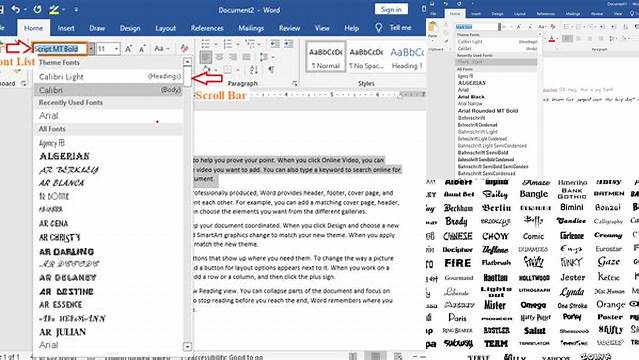
Understanding the Microsoft Word Font List PDF: Your Ultimate Guide
Hey guys, ever found yourself staring at a blank Word document, wondering which font to pick? It's a common struggle, right? Choosing the right Microsoft Word fonts list PDF can totally transform your document from drab to fab. Whether you're crafting a resume, a business proposal, a creative story, or just a simple memo, the font you select plays a massive role in how your message is received. This is where a good understanding of font lists, especially those available in PDF format, becomes super handy. Think of a font list PDF as your secret weapon for consistent and professional-looking documents. It’s not just about picking something that looks cool; it's about selecting a typeface that enhances readability, conveys the right tone, and aligns with the purpose of your document. We'll dive deep into why these lists are so valuable and how you can leverage them to make your Word documents stand out. Get ready to unlock the power of typography right at your fingertips!
Why You Need a Microsoft Word Font List PDF
So, you're probably thinking, "Why bother with a PDF font list? Can't I just see them in Word?" Well, yes, you can see them, but a dedicated Microsoft Word fonts list PDF offers a structured and comprehensive overview that's often missing within the application itself. Imagine trying to choose paint colors by just looking at tiny swatches on a wall versus having a large, organized chart showing all the shades and their names. A font list PDF is like that chart for your text. It allows you to see multiple fonts side-by-side, often with examples of how they render different characters and styles. This visual comparison is crucial for making an informed decision. Furthermore, these PDFs can serve as a reference when you're working on different computers or collaborating with others, ensuring everyone is on the same page regarding font choices. It helps avoid that awkward moment when a colleague opens your document, and everything looks completely different because they don't have the specific font installed. Plus, many comprehensive font list PDFs categorize fonts by style (serif, sans-serif, script, decorative), making it easier to find a font that matches a specific mood or brand identity. It's all about making your document visually appealing and communicating your message effectively, and a font list PDF is a fantastic tool to help you achieve that goal. It’s more than just a list; it’s a gateway to better document design.
Exploring Serif Fonts in Your Word Font List PDF
Alright, let's talk about serif fonts, a cornerstone of many Microsoft Word fonts list PDF resources. You know those little decorative strokes, the tiny feet, at the end of the main strokes of letters? Those are serifs! Think of classic fonts like Times New Roman, Georgia, or Garamond. These fonts are often considered traditional, elegant, and highly readable, especially for long blocks of text in print. When you’re browsing a font list PDF, look for the serif category. You'll see a whole world of variations: old-style serifs, transitional serifs, modern serifs, and slab serifs, each with its unique character. Old-style serifs, like Garamond, mimic the brush strokes of traditional calligraphy. Transitional serifs, like Baskerville, have more contrast between thick and thin strokes. Modern serifs, such as Bodoni, feature dramatic contrast and vertical stress. Slab serifs, like Rockwell, have thick, block-like serifs. Why is this important for your Word documents? Serif fonts tend to guide the eye along the line of text, which can be incredibly beneficial for readability in lengthy reports, books, or articles. When you're creating a resume, a serif font can project a sense of professionalism and tradition. For a more academic paper, they lend an air of authority and seriousness. When you're using your font list PDF, pay attention to how these serifs are designed. Some are delicate and fine, while others are bold and assertive. This subtle difference can significantly impact the overall feel of your document. So, next time you’re crafting a document, don't just skim past the serif section in your PDF; explore it! It might just hold the perfect font to give your work that polished, classic touch it deserves.
Discovering Sans-Serif Fonts from Your PDF Guide
Now, let's switch gears and talk about the other major player: sans-serif fonts. The name itself, "sans," means "without" in French, so sans-serif fonts are literally fonts without serifs. Think of popular choices like Arial, Calibri, Helvetica, or Verdana. You’ll find these prominently featured in any good Microsoft Word fonts list PDF. Sans-serif fonts are generally perceived as modern, clean, and straightforward. They have a more minimalist aesthetic compared to their serif counterparts. Why are they so popular, especially in digital contexts? Because they tend to render crisply on screens, making them excellent choices for websites, user interfaces, presentations, and, of course, your everyday Word documents. When you're using your font list PDF, you'll notice the diversity within the sans-serif category too. There are grotesque sans-serifs (like Franklin Gothic), geometric sans-serifs (like Futura, based on shapes), and humanist sans-serifs (like Open Sans, with more variation in stroke width and an organic feel). Choosing a sans-serif font for your Word document can make it feel contemporary and accessible. They’re often preferred for headings and shorter blocks of text because their clean lines can create a strong visual impact without being overwhelming. If you're designing a flyer, a modern report, or even a casual email that needs to look sharp and professional, a sans-serif font is often your best bet. When you refer to your font list PDF, consider the purpose of your document. Need something sleek and techy? Look for geometric sans-serifs. Need something friendly and approachable? Humanist sans-serifs might be the way to go. These fonts are versatile and form the backbone of much of today's design.
The Charm of Script Fonts: A Look in Your PDF
Moving on, let's dive into the more decorative and expressive world of script fonts. These are the fonts that mimic handwriting or calligraphy, ranging from elegant, flowing scripts to more casual, handwritten styles. If you've ever looked at a Microsoft Word fonts list PDF, you've likely seen a dedicated section for these beauties. Script fonts add a touch of personality, sophistication, and warmth to your documents. Think of wedding invitations, greeting cards, or perhaps a personal letter where you want to convey a sense of intimacy or style. Fonts like Brush Script MT, Lucida Calligraphy, or Edwardian Script ITC fall into this category. When you’re browsing your PDF, you'll notice a spectrum of styles. Some script fonts are very formal and ornate, suitable for formal invitations or elegant branding. Others are much more casual and playful, perfect for birthday cards or creative projects. However, a word of caution, guys: script fonts can sometimes be challenging to read, especially in large quantities or for extended reading. They are best used sparingly as accents – for titles, headings, or short, impactful phrases. Imagine using a very elaborate script font for your entire resume; it would likely be a readability nightmare! In your font list PDF, observe the spacing between letters (kerning) and the flow of the characters. Do they connect smoothly like cursive handwriting? Are the strokes thick and bold, or thin and delicate? Understanding these nuances will help you choose a script font that enhances your message rather than detracts from it. Use them wisely, and they can add a unique and memorable flair to your Word creations.
Decorative Fonts: Making a Statement with Your PDF List
Finally, let's explore the exciting realm of decorative or display fonts. These are the showstoppers, the fonts designed to grab attention and make a bold statement. You'll typically find them towards the end of a Microsoft Word fonts list PDF, often labeled as 'Decorative,' 'Display,' or 'Specialty.' Unlike serif and sans-serif fonts, which prioritize readability, decorative fonts prioritize personality and visual impact. They come in countless styles, from quirky and whimsical to edgy and futuristic, and even retro or themed designs. Think of fonts shaped like animals, fonts with intricate patterns, or those that evoke a specific era or theme, like a Western saloon or a sci-fi movie. They are fantastic for headlines, posters, logos, or any situation where you want your text to be visually arresting and memorable. However, just like script fonts, decorative fonts are generally not suitable for body text due to their complexity and potential impact on readability. They are best used for short bursts of text where the visual element is paramount. When you're consulting your font list PDF, take a moment to appreciate the creativity and artistry behind these fonts. Consider the context: does the font's style align with the message you're trying to convey? A playful, cartoonish font might be perfect for a children's party invitation but disastrous for a formal report. Conversely, a bold, industrial-style font could be great for a rock concert poster but out of place on a wedding invitation. Use these fonts strategically to add a unique character and visual interest to your Word documents, making them truly unforgettable.
Finding Specific Fonts: Tips for Using Your PDF
So, you've got your trusty Microsoft Word fonts list PDF, but how do you actually find that perfect font you have in mind? It’s not always as simple as just scrolling endlessly. Firstly, if your PDF is well-organized (and good ones usually are!), look for an index or a table of contents. This will often categorize fonts by type (serif, sans-serif, etc.) or even list them alphabetically. If you’re searching for a specific font name, use your PDF reader's search function – it's a lifesaver! Just hit Ctrl+F (or Cmd+F on a Mac) and type in the font name. Easy peasy. If you're looking for a font with a particular feel – say, something